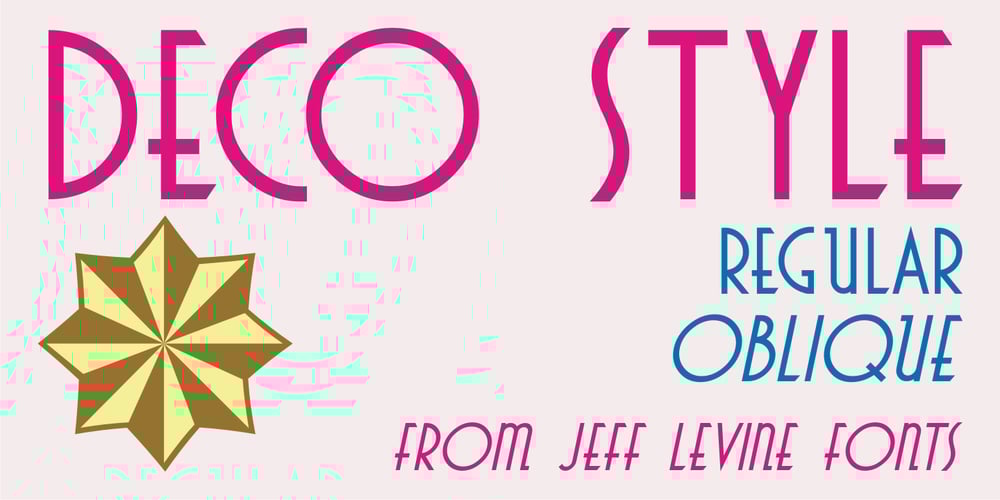
Deco Style JNL Font Family was designed by Jeff Levine and published by Jeff Levine. Deco Style JNL contains 2 styles and family package options. The hand lettered title on the 1943 sheet music for “This Love of Mine” formed the basis for Deco Style JNL, which is available in both regular and oblique versions.